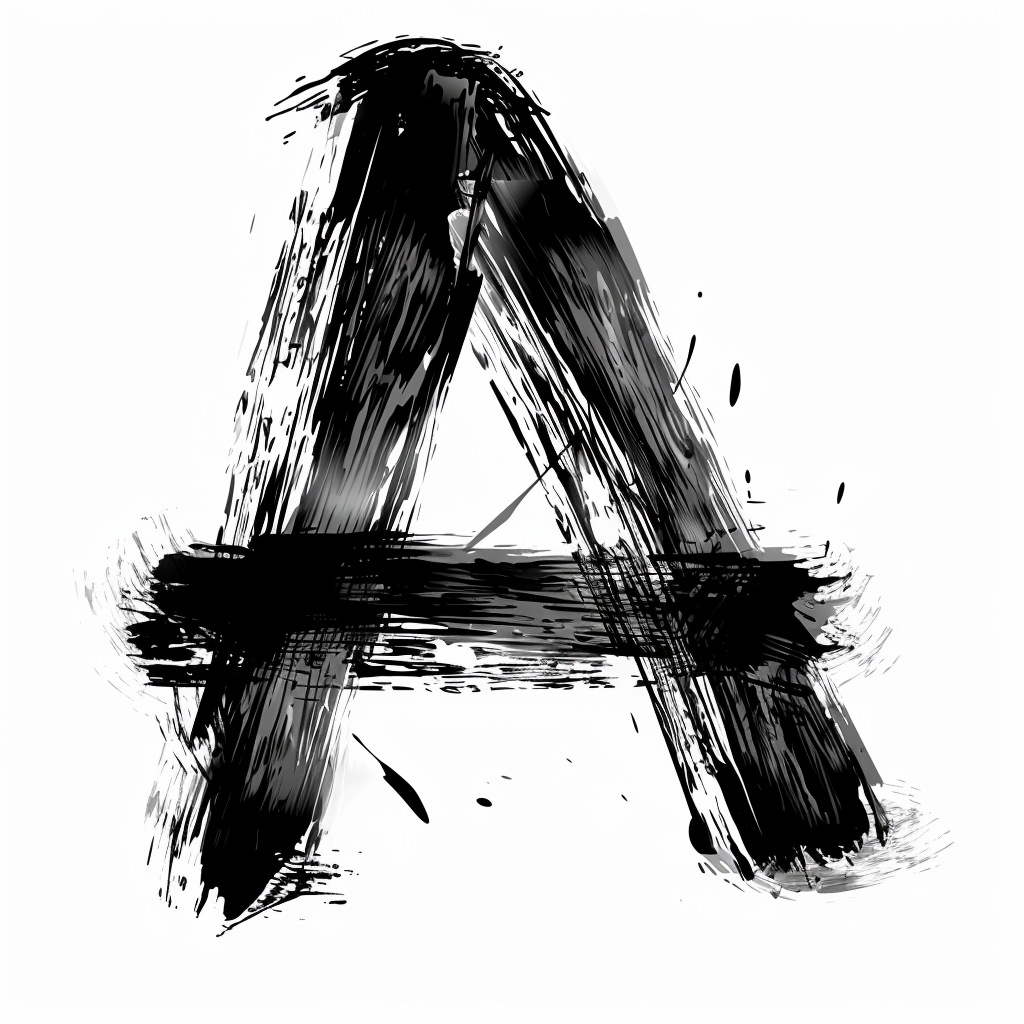
The image features a stylized letter "A" rendered in a bold, expressive brushstroke style. The letter is composed of thick, textured black strokes with visible smudges, splatters, and varying shades of gray, creating a dynamic, artistic effect against a clean white background. The design emphasizes raw, hand-painted energy through its rough, uneven edges and scattered ink droplets.